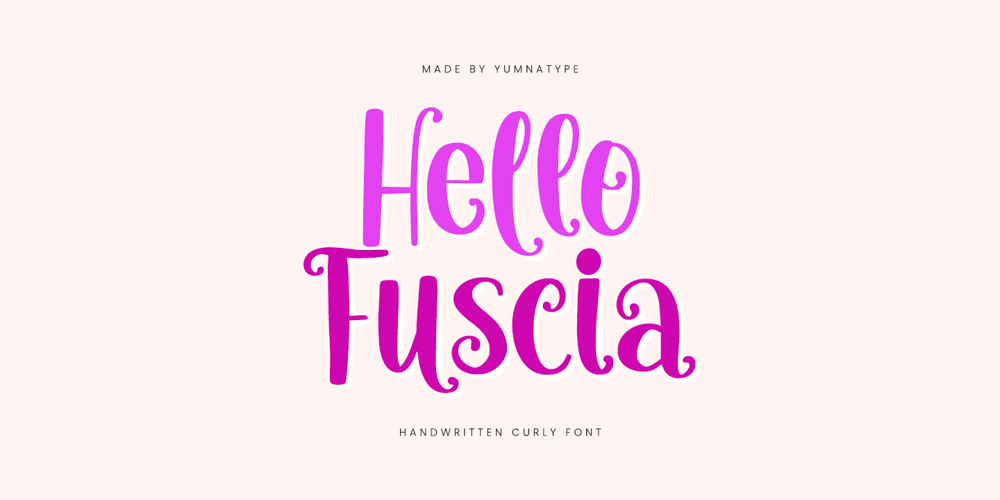
Hello Fuscia
Hello Fuscia font
Hello Fuscia Font Family was designed by Donis Miftahudin and published by Yumna Type. Hello Fuscia contains 1 styles and family package options. Hello Fuscia is a delightful handwritten font that combines playful charm with elegant flourishes. Each letter in Hello Fuscia is crafted with a lively, hand-drawn quality, featuring smooth, uniform shapes that maintain consistency throughout the font. The playful style of the font ensures an engaging and fun appearance, perfect for designs that aim to be vibrant and cheerful.What sets Hello Fuscia apart is its distinctive curly endings. These elegant curls add a touch of whimsy and creativity to the letters, making the font stand out and adding an extra layer of personality to your text. In addition, enjoy the features here.Features: Alternates Ligatures Multilingual Supports PUA Encoded Numerals and Punctuations Hello Fuscia fits in headlines, logos, posters, flyers, branding materials, print media, editorial layouts, and many more designs. Find out more ways to use this font by taking a look at the font preview.Thanks for purchasing our fonts. Hopefully, you have a great time using our font. Feel free to contact us anytime for further information or when you have trouble with the font. Thanks a lot and happy designing.